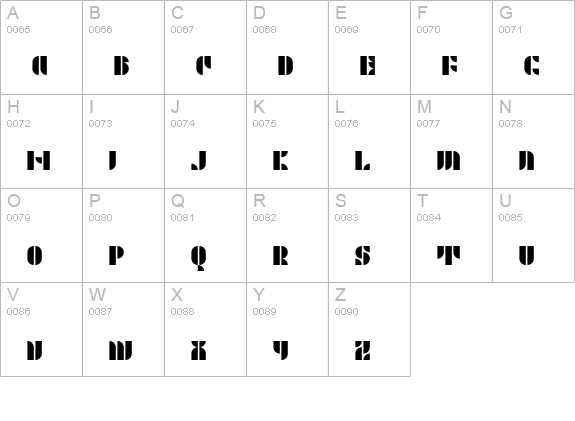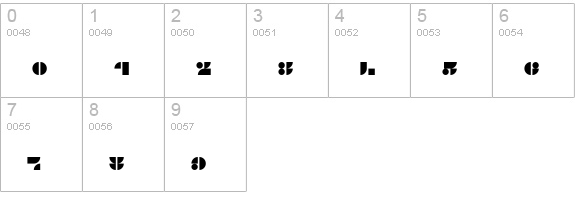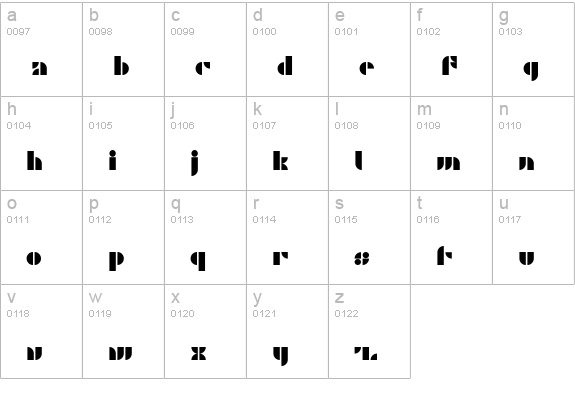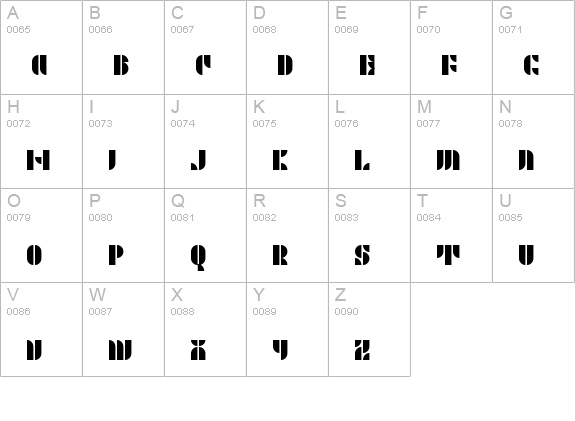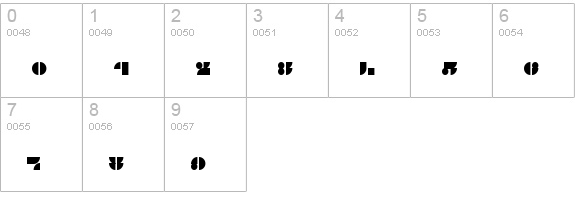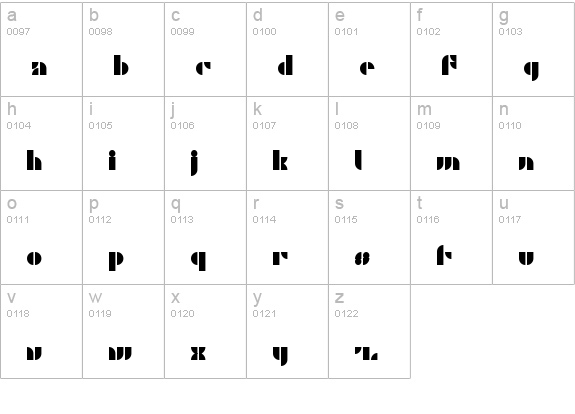
P22 Albers Two Font Details
P22 Albers Two font is a mesmerizing and versatile typeface that captures the essence of Josef Albers' iconic geometric art. Inspired by the Bauhaus movement, this font effortlessly combines simplicity and elegance, making it a perfect choice for a wide range of design projects. With its clean lines and balanced proportions, P22 Albers Two font brings a sense of harmony to any design layout. Its precise and meticulously crafted characters create a visual rhythm that is both captivating and timeless. Whether used for headlines, body text, or logos, this font adds a touch of sophistication and professionalism to any project. One of the most remarkable features of P22 Albers Two font is that it is freely available to download at FontsMarket.com. This means that designers and creatives can enjoy the beauty and versatility of this font without any cost. It's a fantastic opportunity to enhance your designs with a high-quality typeface that stands out from the crowd. P22 Albers Two font is compatible with various software and platforms, ensuring seamless integration into your creative workflow. Its extensive character set includes uppercase and lowercase letters, numerals, punctuation marks, and special symbols, allowing you to express your ideas with precision and clarity. Whether you're working on a branding project, editorial design, or web design, P22 Albers Two font is an excellent choice that will elevate your work to new heights. Its timeless appeal, combined with its versatility, makes it a must-have font for any designer's toolkit. In conclusion, P22 Albers Two font is a free typeface that brings the spirit of Josef Albers' geometric art to your design projects. Its elegant and harmonious design, along with its wide range of applications, makes it a valuable asset for any creative endeavor. Download this font for free at FontsMarket.com and unlock the potential of your designs.